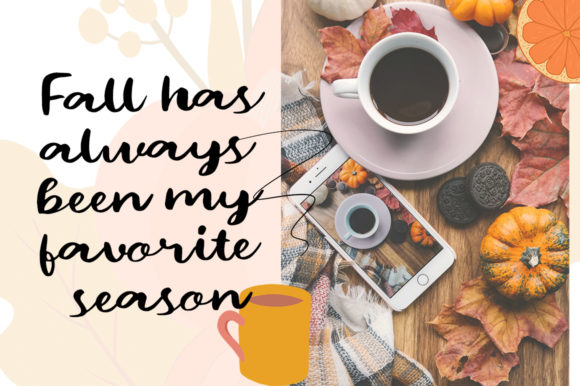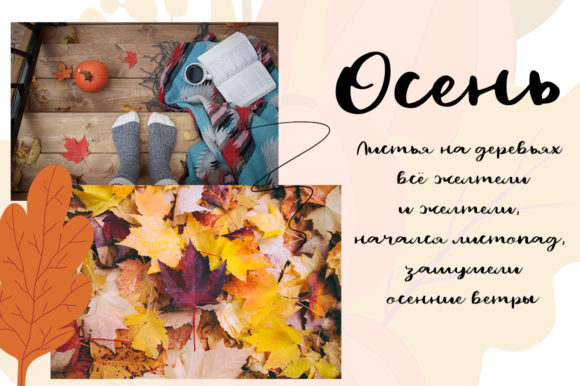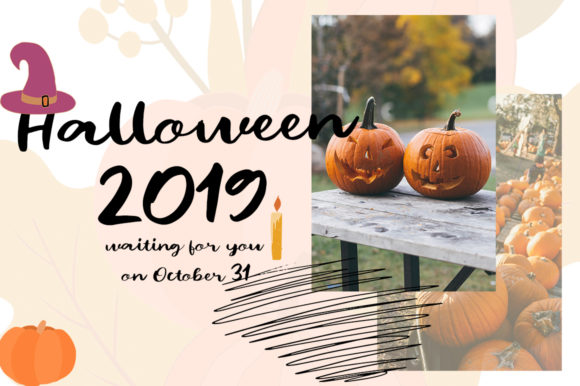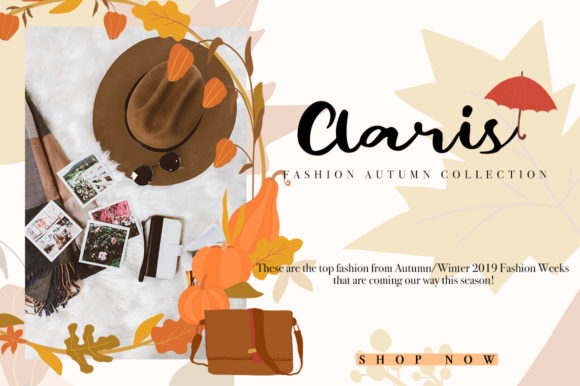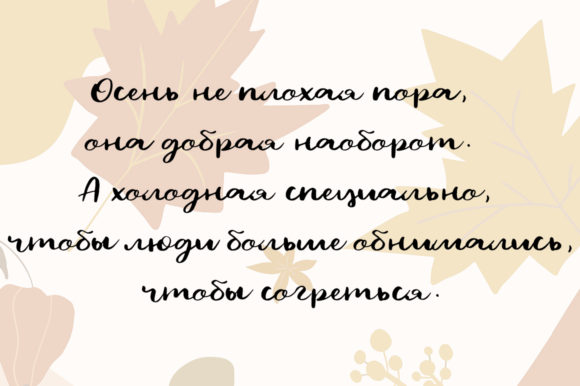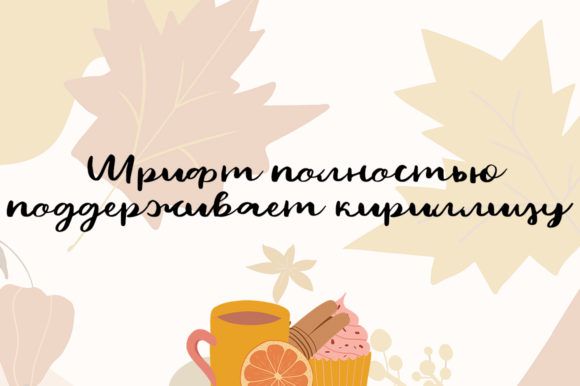
Embracing the Cozy Vibes of Fall with Hello Autumn Font
As the leaves start to change colors and the crisp air sets in, I find myself getting lost in the creative process of planning fall-themed crafts and projects. There’s something about the combination of warm spices, rich colors, and cozy textures that sparks my imagination and inspires me to get creative. This time of year is the perfect opportunity to experiment with new fonts and designs that capture the essence of autumn.
That’s why I’m excited to introduce you to the Hello Autumn Font, a beautiful and versatile font that celebrates all things fall. This font is not just a pretty face, but a valuable tool for designers looking to add a personal touch to their projects. With its fully supported Cyrillic characters, the Hello Autumn Font is perfect for crafting unique and personalized items that will make your friends and family feel special.
Hello Autumn Font Key Features
- Unique Characteristics: The font features a warm, inviting aesthetic with intricate details, making it ideal for autumn-themed designs, invitations, and branding materials.
- Script and Ligatures: Hello Autumn Font includes a range of script and ligature styles, allowing designers to add a touch of elegance and sophistication to their work.
Hello Autumn Font Review
I recently had the chance to work with the “Hello Autumn Font” and here’s my honest review.
- The font’s warm and inviting color palette is perfect for autumn-themed designs. The mix of oranges, yellows, and reds creates a cozy atmosphere.
- The font’s script style adds a personal touch to any design, making it ideal for invitations, quotes, and other handwritten-style projects.
- The font is highly legible, even at small font sizes, making it suitable for a wide range of applications.
- The font may not be suitable for modern or minimalist designs, as its script style can come across as overly ornate.
- The font’s limited character set may cause issues when working with complex text or multiple languages.
- The font’s design may not be scalable for very large font sizes, which could lead to pixelation or distortion.
Overall, I think the “Hello Autumn Font” is a great choice for autumn-themed designs or projects that require a warm and inviting feel. However, it may not be the best fit for every design project.
Getting the Most Out of Hello Autumn Font
To get the most out of Hello Autumn Font, use it for:
- Seasonal or autumn-themed designs.
- Outdoor or nature-inspired projects.
- Cozy or rustic-themed branding.
Hello Autumn Font is commonly used for:
- Invitations and event materials.
- Business cards and branding materials.
- Posters and flyers.
Alternatives to Hello Autumn Font for Designers
Hello Autumn Font is a popular serif font known for its warm and cozy feel, perfect for autumn-themed designs and invitations. However, if you’re looking for alternatives, here are a few options to consider:
Great Vibes Font is a beautiful script font with a warm and elegant feel. It’s perfect for designs that need a touch of sophistication and whimsy. Compared to Hello Autumn Font, Great Vibes Font has a more flowing and cursive feel, making it ideal for wedding invitations, quotes, and other creative projects. Use it when you want to add a sense of romance and elegance to your design.
Pacifico Font is a modern script font with a relaxed and casual feel. It’s perfect for designs that need a touch of sophistication and ease. Compared to Hello Autumn Font, Pacifico Font has a more laid-back and beachy vibe, making it ideal for summer-themed designs, travel brochures, and other projects that need a carefree feel. Use it when you want to create a sense of calm and relaxation in your design.